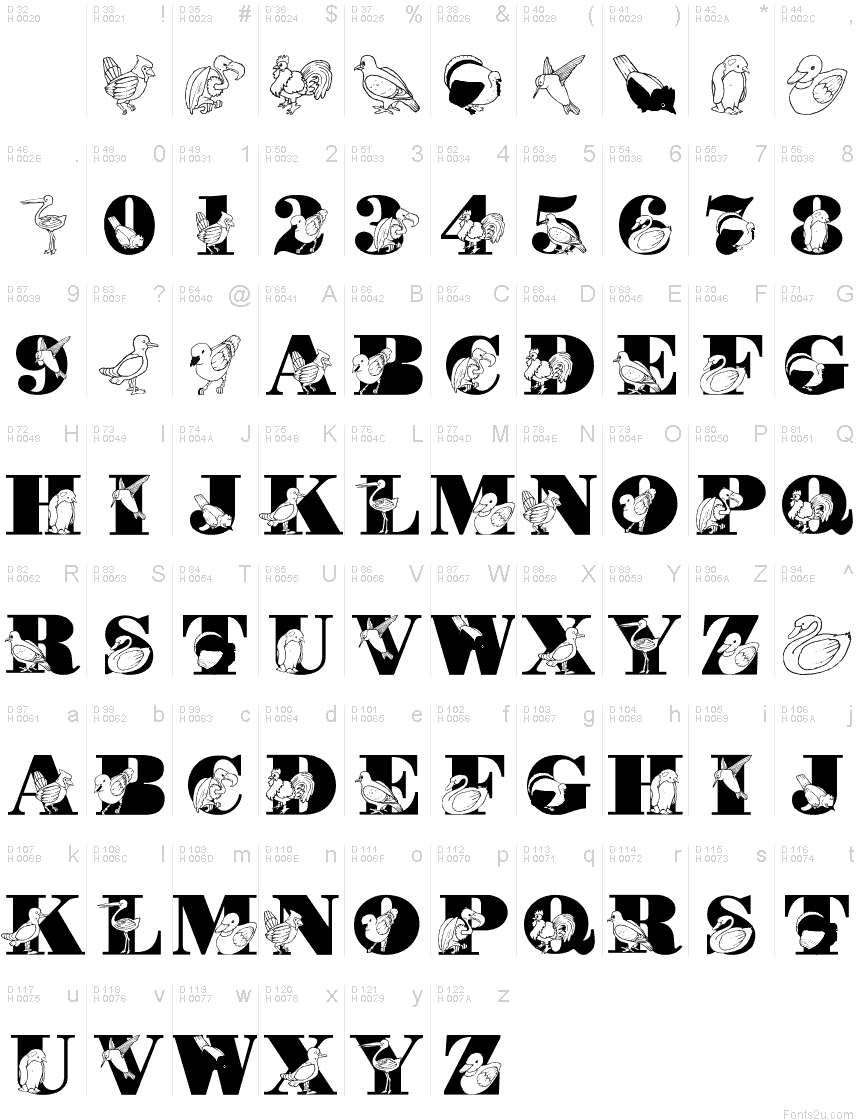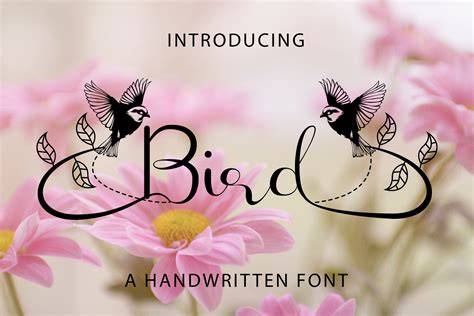
Bird Fonts: The Newest Trend In Typography
In the ever-changing world of typography, one of the hottest new trends is bird fonts. These fonts, which feature ornamental and decorative birds, are quickly becoming one of the most popular choices for both professional and amateur designers. With their unique style and eye-catching designs, bird fonts are the perfect way to add a unique touch to any project.
Why Use Bird Fonts?
Bird fonts are a great way to add a unique flair to any project. They can be used to create a variety of different looks, whether it be a more whimsical style or a modern, edgy style. With a wide range of different fonts available, you are sure to find the perfect one for your needs. Plus, bird fonts can also be used to create a more personalized look, as you can choose from a variety of different birds to make up the design.
What Types of Bird Fonts are Available?
There are a variety of different bird fonts available, from classic designs to more modern and decorative styles. Some of the most popular bird fonts include parrot, hummingbird, owl, and dove. Each of these fonts has its own unique style and can be used to create a variety of different looks. You can also find bird fonts with various colors, textures, and patterns, allowing you to create a truly unique design.
How to Use Bird Fonts?
Bird fonts are the perfect way to add a unique and eye-catching touch to any project. With a wide range of different fonts available, you can find the perfect one for your needs. Plus, you can find bird fonts for free online, so you won't have to break the bank to get the perfect font for your project. Whether you are looking for a classic design or something more modern and decorative, bird fonts are the perfect way to add some flair to any project.